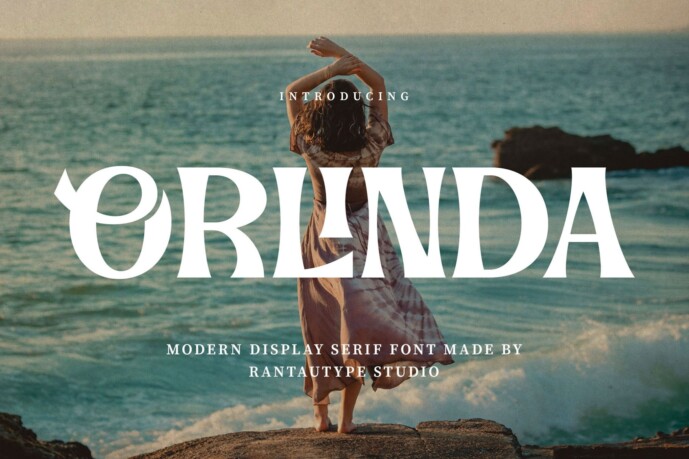
Orlinda Font
Designer: RantautypeStudio
Orlinda is a sophisticated font that blends the timeless elegance of traditional serifs with the clean lines and bold character of contemporary design.
Orlinda is a perfectly choice for any creative endeavor, chic, lifestyle design such as logotype, advertisements, watermark on photography, stationery, branding project, display and magazine, invitation, corporate brand, product design, label, business project and many other project with modern touch.